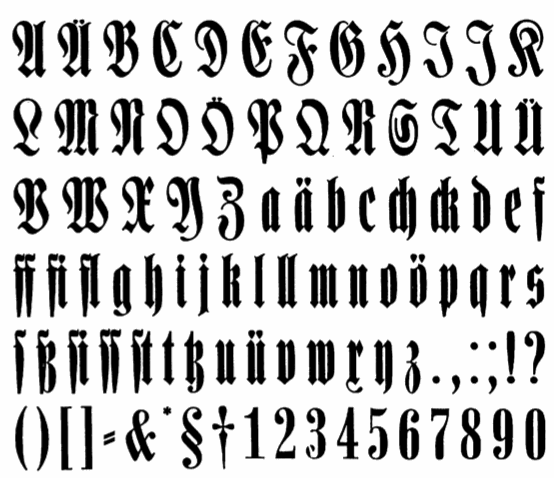
Eduard Brox
German type designer who did mainly blackletter alphabets: Moderne Alt-Fraktur (1906; the date at AG für Schriftgiesserei und Maschinenbau is 1910), Hamburger Fraktur (1907, J. John Söhne; includes also Fette, Halbfette), Faust-Fraktur (1910, D. Stempel; includes also Fette, Halbfette, Schmale Halbfette), Neue Moderne Fraktur (normal and halbfett) (1909, elsewhere, this is known as Faust, Richard Wagner, Ideal, Dresdner Amts, Hamburger and Alt Fraktur). |